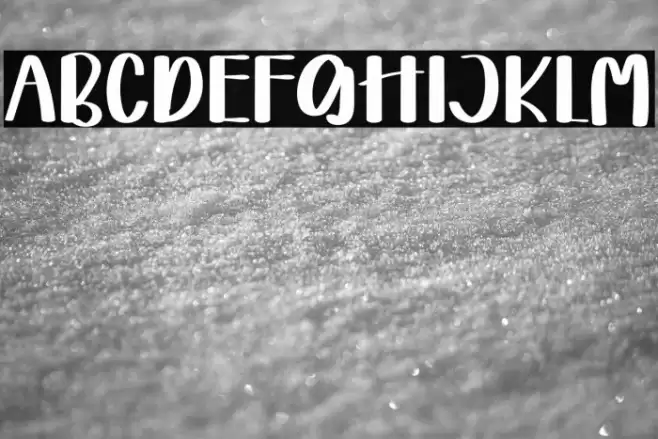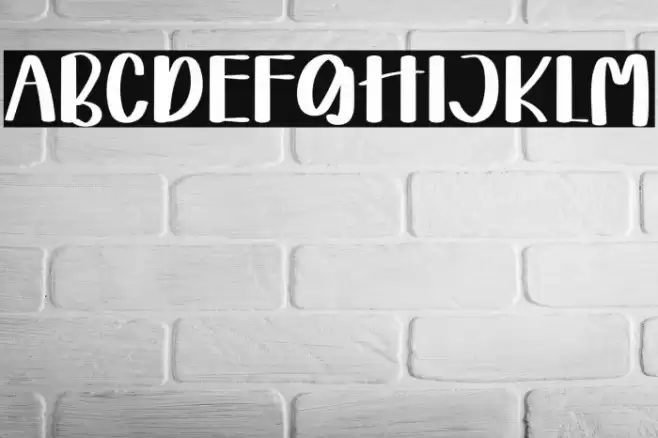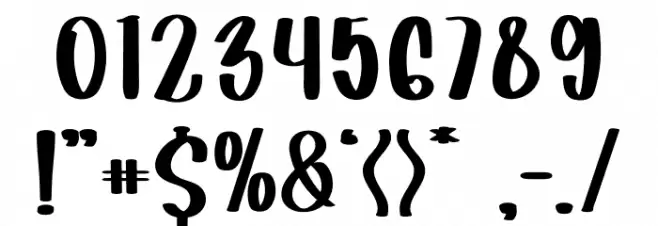
Play Gaming Font
Play Gaming Description
This playful and bold font features a unique blend of rounded and angular elements, creating a lively and dynamic appearance. The uppercase letters are characterized by their thick strokes and slight slant, giving them a sense of movement and energy. The lowercase letters maintain this playful style, with some characters featuring distinctive loops and curves that add to the font's whimsical nature. The numerals are equally bold and consistent with the overall style, ensuring readability while maintaining the font's playful aesthetic. Special characters are designed with the same attention to detail, making them an integral part of the font's cohesive look.
A bold and playful font with rounded and angular elements, perfect for dynamic designs from Uncategorized fonts.
- Font: Play Gaming
- Overall Style: Playful, Modern